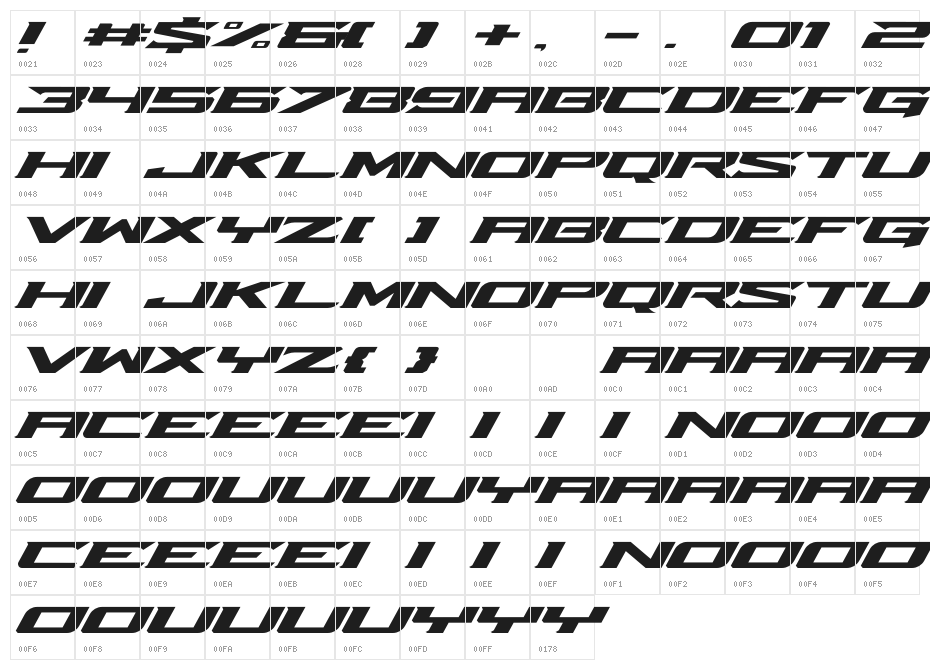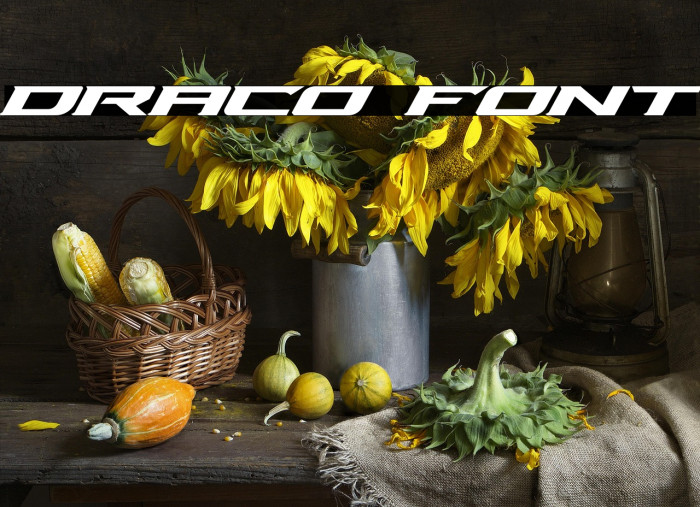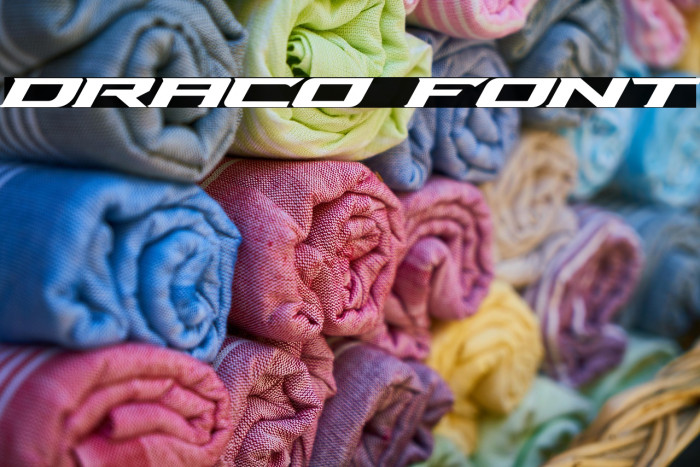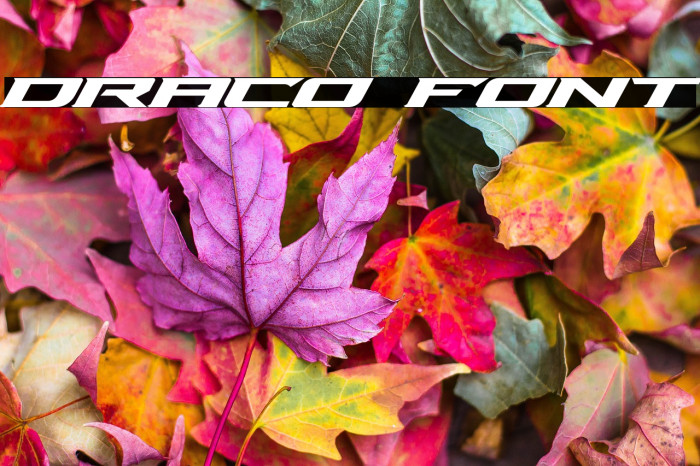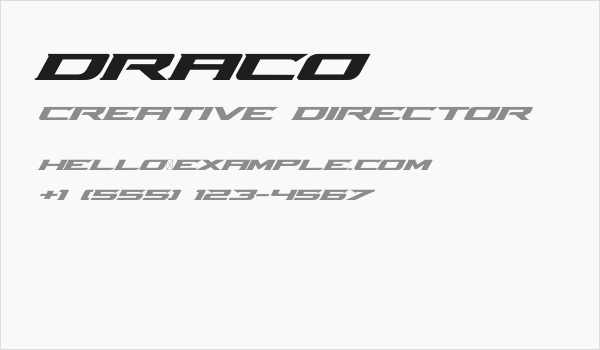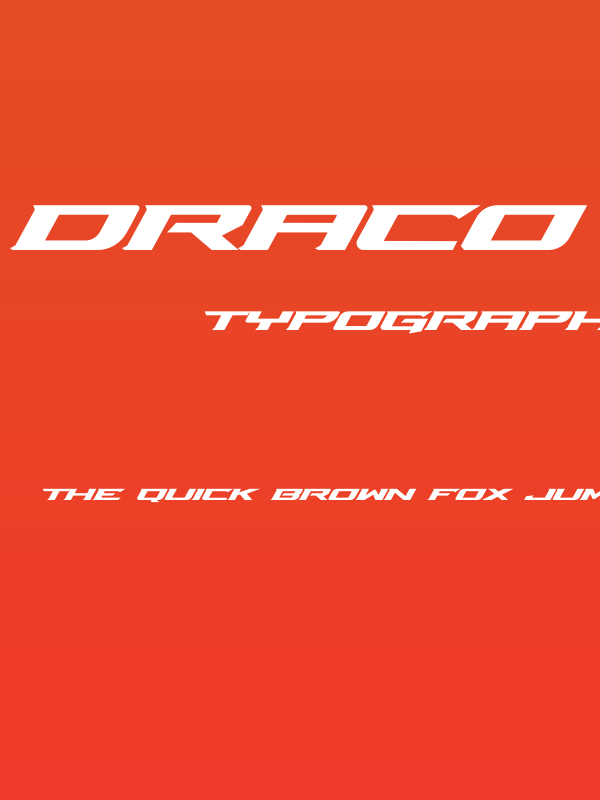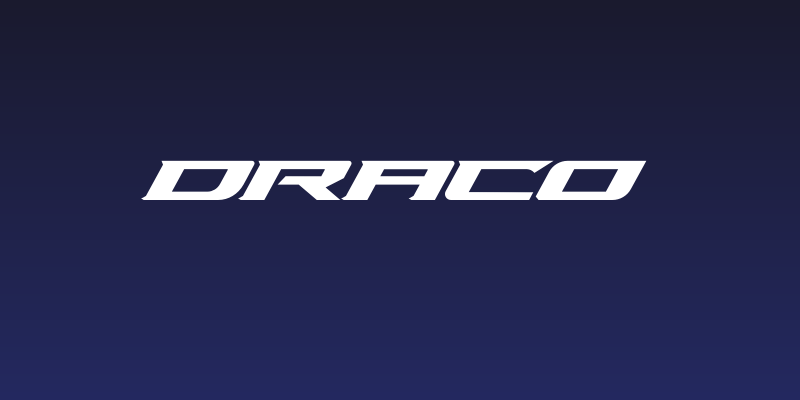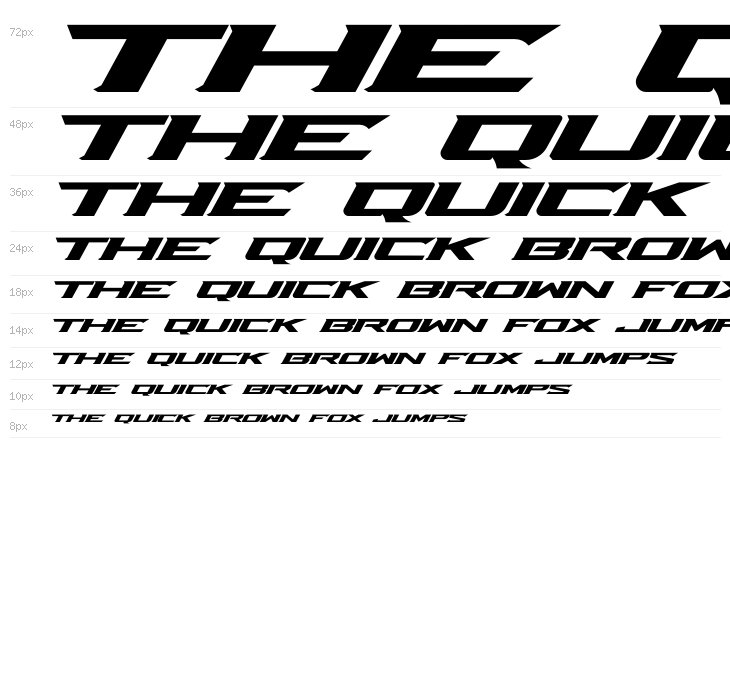
Draco Font
Draco Description
This font features a bold, angular design with a futuristic and dynamic aesthetic. The characters are sharply defined with a forward-leaning slant, giving a sense of motion and speed. The uppercase and lowercase letters maintain a consistent style, with the lowercase being slightly smaller but equally impactful. Numbers and special characters are designed to match the overall theme, ensuring uniformity across all glyphs. The font's distinctive style makes it ideal for projects that require a modern, edgy look.
| Proposed Projects | Ideal for sports branding, automotive designs, video game titles, and tech-related projects. |